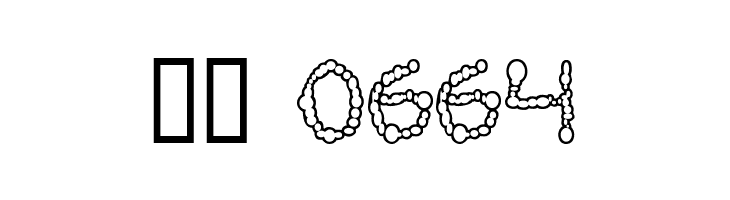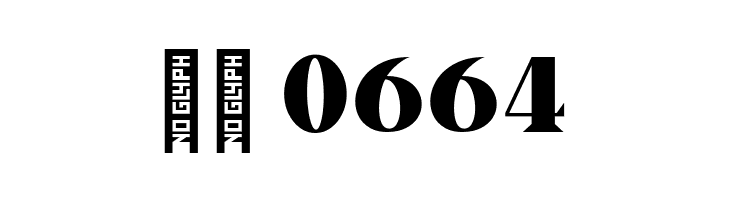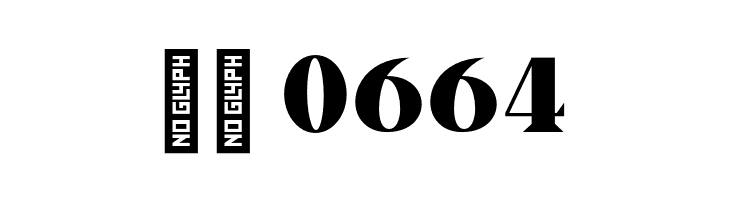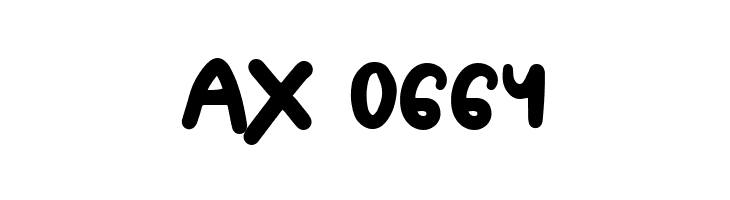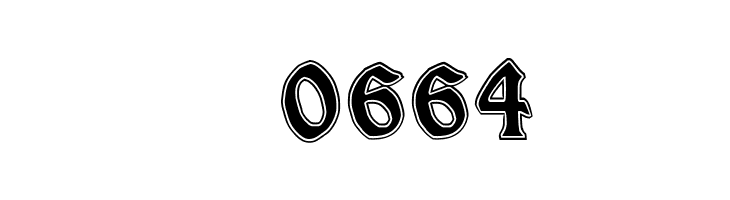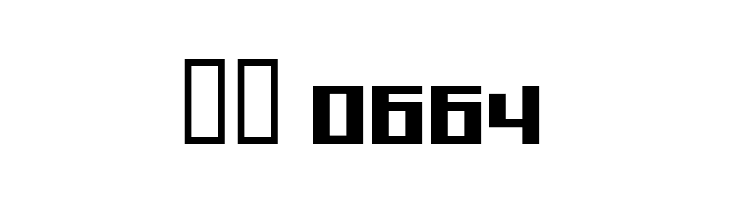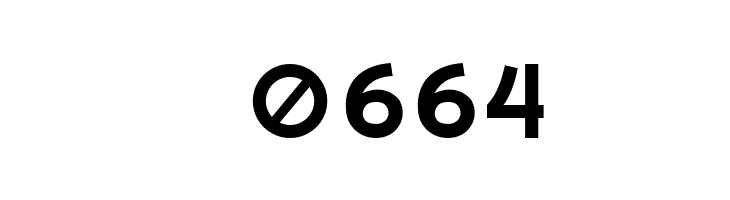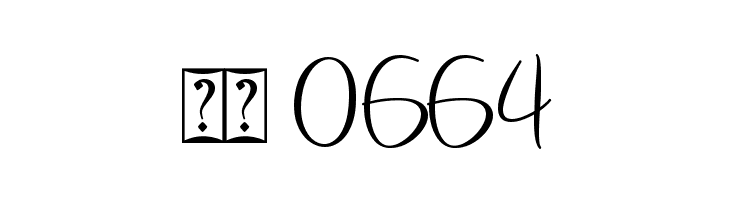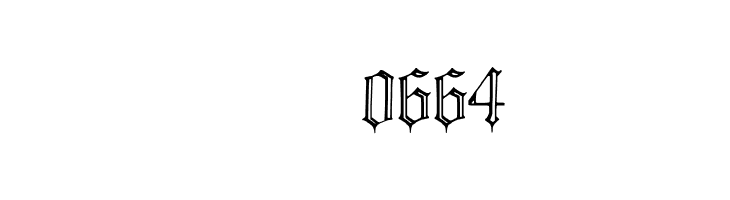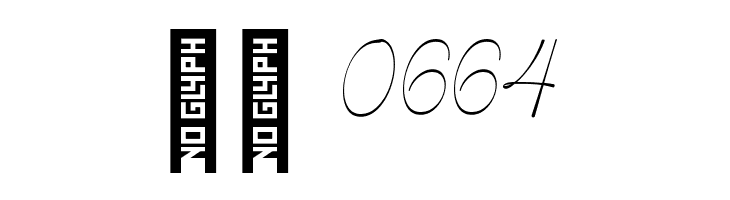
A bold serif font with a modern yet classic style, perfect for impactful designs.
A bold, high-contrast serif font with a modern yet classic appeal.
A bold, geometric font with striped patterns and angular shapes.
A bold, edgy font with a distressed, geometric style.
A charming and elegant script font with flowing, cursive letterforms.
A playful, bubble-like font with rounded, droplet-inspired characters.
A whimsical and flowing script font with elegant, fluid letterforms.
A bold, geometric font with a futuristic, digital design.
A bold, geometric font with a modern, digital aesthetic.
A bold, multi-line decorative font with a futuristic and geometric style.
A playful, hand-drawn font with a whimsical and lively style.
A bold, high-contrast font with a modern-vintage style and elegant curves.
An elegant and flowing script font with graceful, cursive letterforms.
A playful, bold handwritten font with rounded strokes and a casual style.
A bold, geometric sans-serif font with a modern, uniform design.
A playful, rounded font with bold, smooth curves and a friendly appearance.
A bold, blackletter-style font with ornate, angular characters.
A bold, outlined blackletter font with a gothic, decorative style.
Playful handwritten-style font with a casual appearance.
Playful, rounded sans-serif font.
A bold, geometric typeface with clean lines and modern appeal.
A bold, playful font with rounded characters and a whimsical style.
A bold, rounded font with a playful and friendly style.
A bold, rounded font with a playful and modern style.
A playful and whimsical script font with flowing, interconnected letters.
A bold, gothic-style font with intricate, ornate details and high contrast.
A classic blackletter font with ornate, historical elegance.
A decorative blackletter font with intricate, gothic-inspired details.
A classic blackletter font with intricate, ornate designs and sharp, angular lines.
A decorative blackletter font with ornate, gothic styling.
A decorative blackletter font with intricate, ornate designs and a medieval manuscript feel.
An ornate blackletter font with intricate, angular designs and historical elegance.
A bold, dynamic script font with calligraphic influences and fluid strokes.